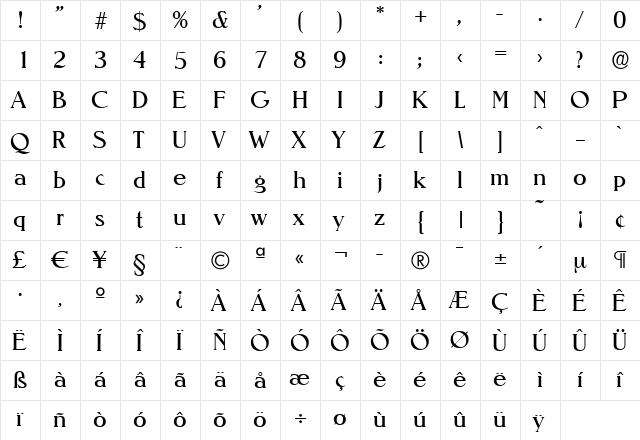
RonaldBecker Regular
Design Context for RonaldBecker Typeface
RonaldBecker offers clean, dependable letterforms without strong stylistic allegiance, making it a practical choice for designers who need flexibility.
Pro Tip: Use RonaldBecker in both headline and body roles to test its range before committing to a single application.